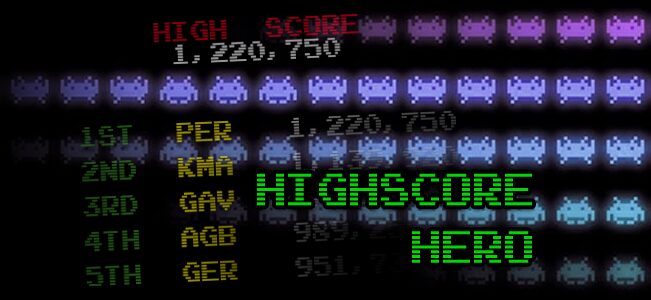
Highscore Hero by TracerTong is a free wide pixel display font with the clipped geometry of an arcade scoreboard, using sparse segmented letters, long horizontal strokes, compact upright joints, and frequent breaks. The proportions are emphatically low and broad.
Racing graphics and cockpit interface imagery share its fast electronic shapes and stretched profile, so it fits game title screens and esports posters with a convincing competitive edge. On music merchandise or technology event branding, the interrupted forms can echo scan lines, circuit traces, and instrument panels without looking like ordinary interface text. Arcade graphics built around speed and competitive scoring remain its most convincing home.